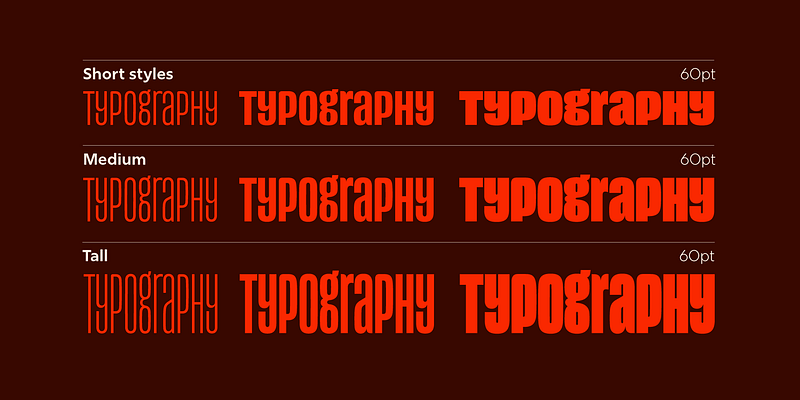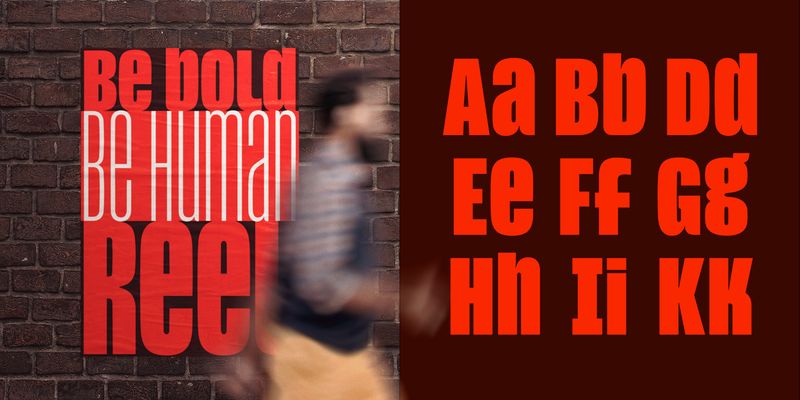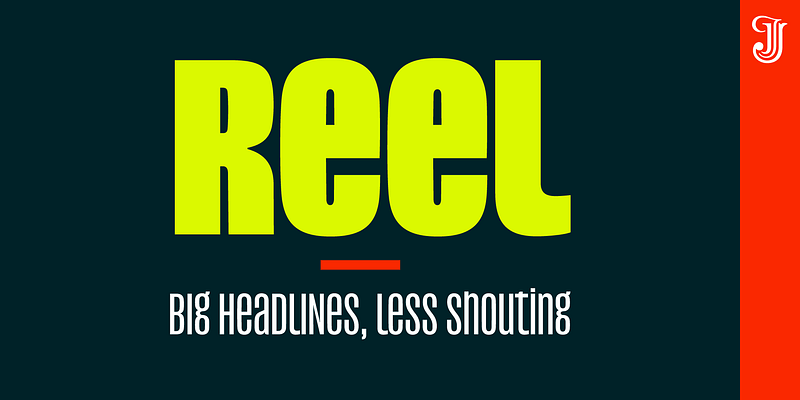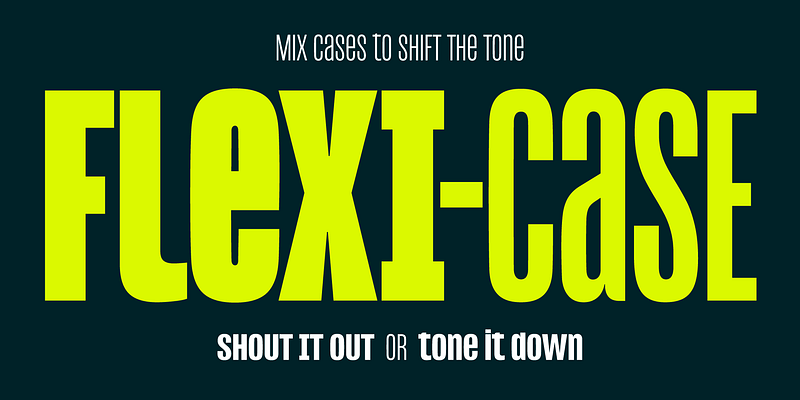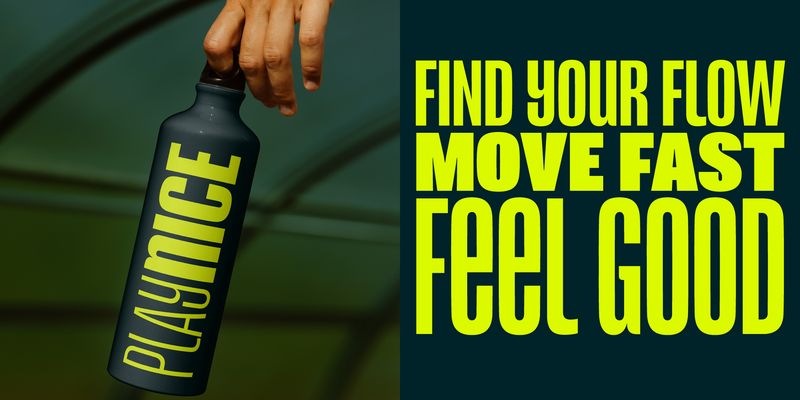
Reel is a condensed headline typeface that brings lowercase letters to the same height and visual presence as capitals, giving designers greater expressive control over headlines.
Mix upper and lowercase without losing the neat rectangular impact of ALL CAPS typography.
• Create strong, structured titles without shouting
• Mix upper and lowercase to soften or sharpen tone
• Adjust weight and height to fit headlines neatly into any space